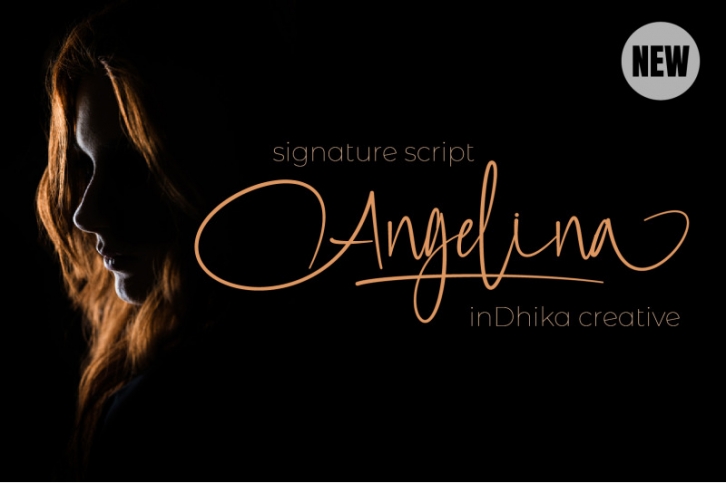
Angelina is a delicate and beautiful script font with a graceful style that has a natural appeal to lines and curves. The latest font for those of you who need a classy and artistic font. You can use this font in various media, such as a signature, notes for greeting cards, for social media posts, personal logos, and so on. And thank you for those of you who trust this font for you to buy it.